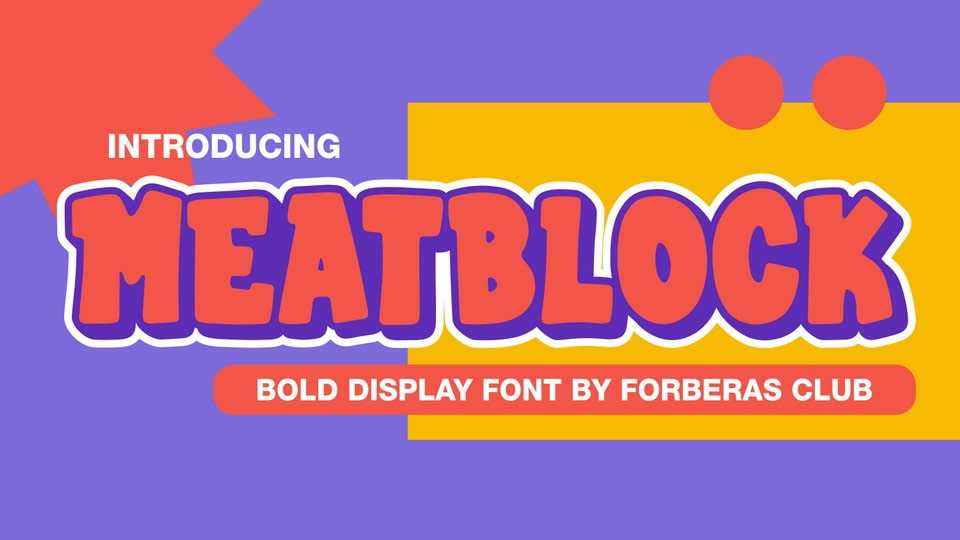
Download Meatblock font, a modern bold display font, perfectly suitable for impact and creative projects! It’s suitable for branding projects, magazines, social media, game covers, or to express words above the background.